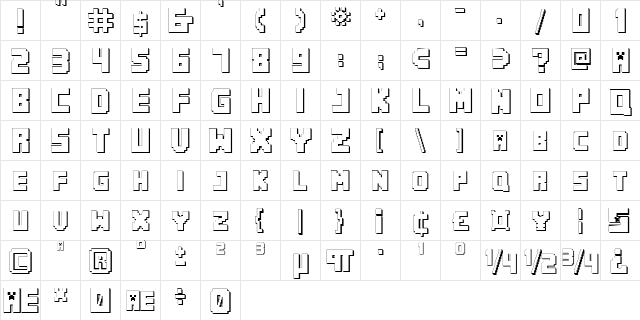
MINECRAFT PE Regular
Design Context for MINECRAFT PE Typeface
MINECRAFT PE is a composed and adaptable typeface that performs quietly and consistently across a wide range of design contexts.